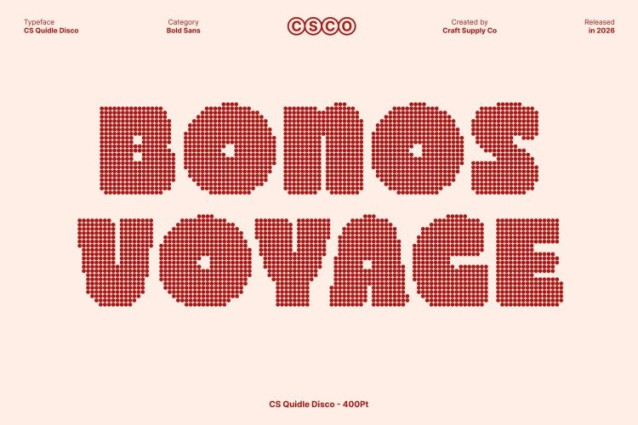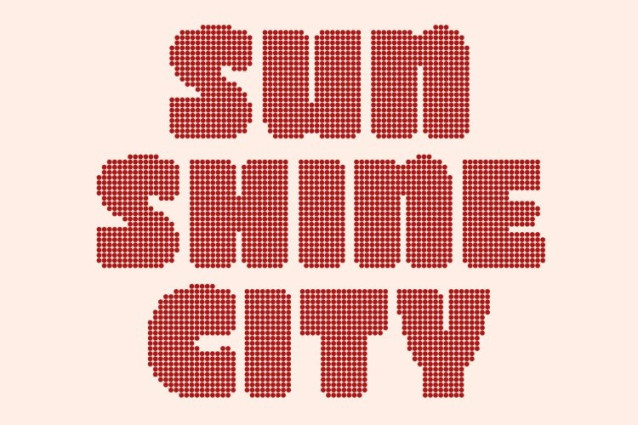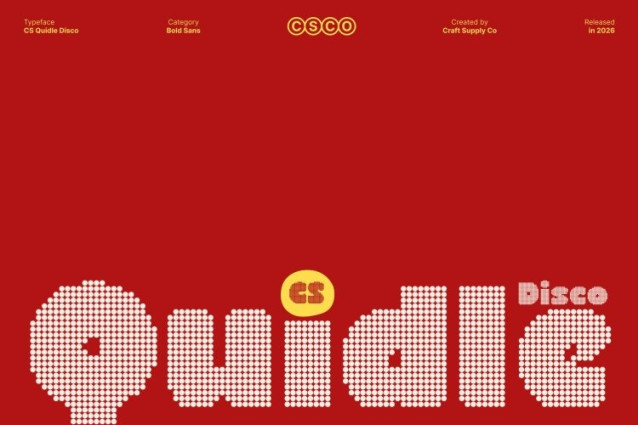
CS Quidle Disco Font
CS Quidle Disco Font is a bold, chunky display font designed to make a powerful visual statement, now enhanced with a lively disco-inspired dotted texture. Its confident geometric shapes and friendly letterforms create a modern yet cute personality, while the sparkling dot pattern adds rhythm and festive energy that makes every word pop.
Quirky Details with Shimmering Character
Each letter features playful quirks that bring a whimsical personality to the typeface. The disco-style dotted texture amplifies this charm, creating a lively visual layer that adds movement and brightness without overpowering the font’s clean structure.
Thick Strokes for Maximum Visual Impact
With its thick strokes and bold geometry, this font maintains excellent readability even in large display settings. The strong shapes command attention, while the dotted sparkle introduces a fun decorative effect making it perfect for designs that need both clarity and excitement.
Perfect for Fun and Creative Design Projects
Ideal for headlines, posters, product packaging, social media graphics, and playful branding, adapts easily to projects that want a bold yet cheerful typographic voice. Its combination of chunky strength and disco-inspired texture creates typography that feels energetic, memorable, and full of personality.